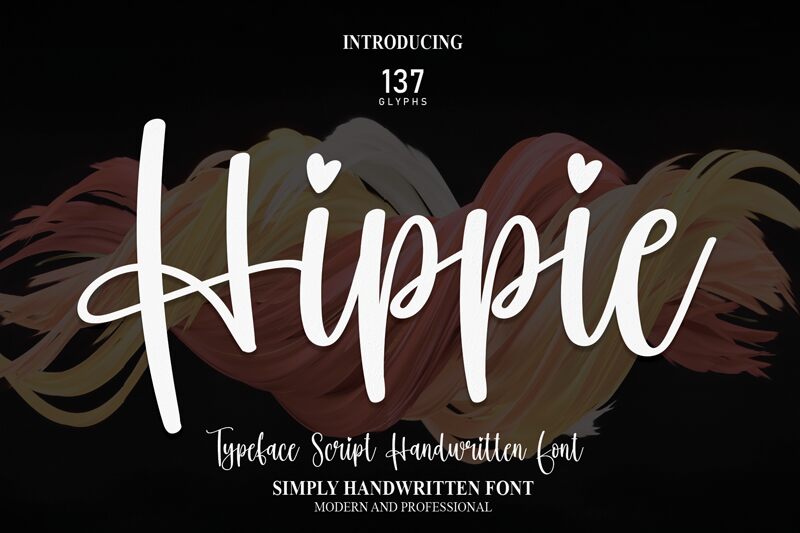
Hippie
Hippie, an exquisite creation by Scratchones, is a captivating handwritten font that exudes a sense of whimsy and charm. With its semi-light weight and condensed width, this font is perfect for adding a touch of elegance to any project.
Whether you're designing wedding invitations, creating beautiful logos for feminine brands, or crafting delicate typography for fashion editorials, Hippie will effortlessly elevate your work to new heights.